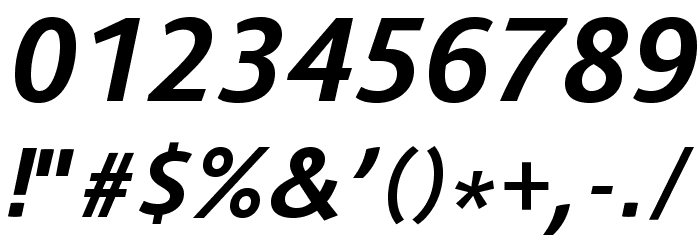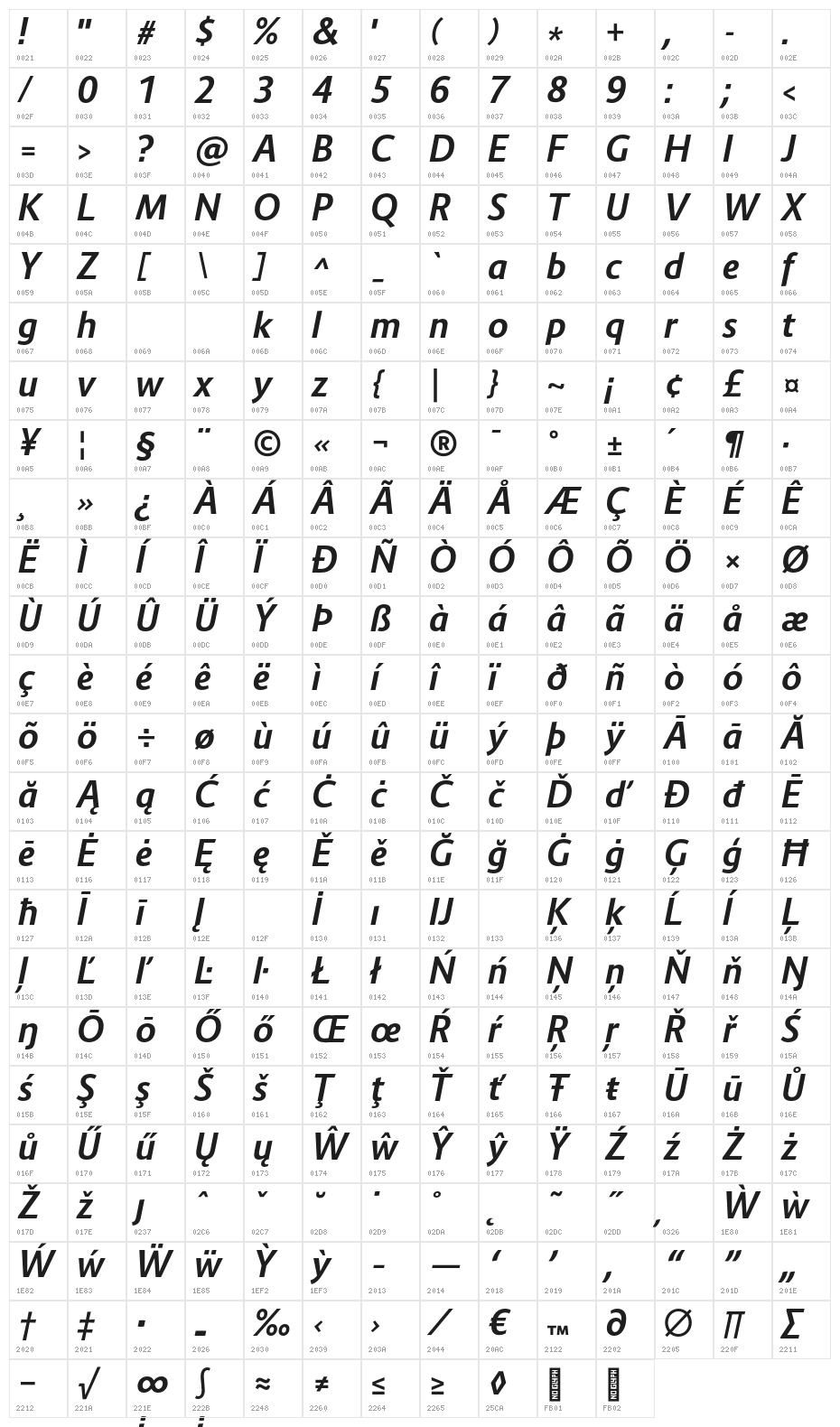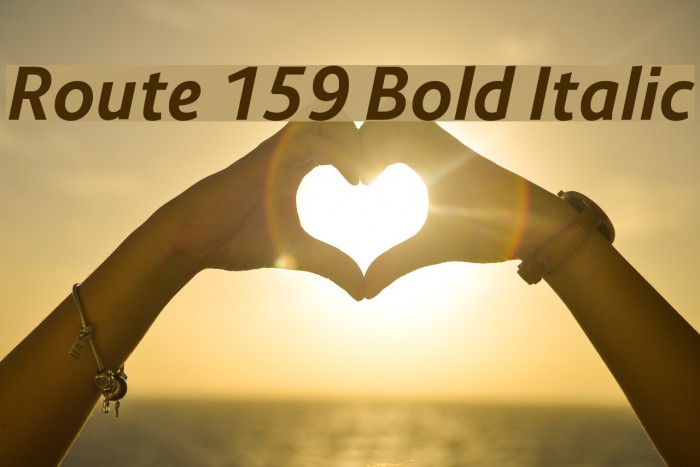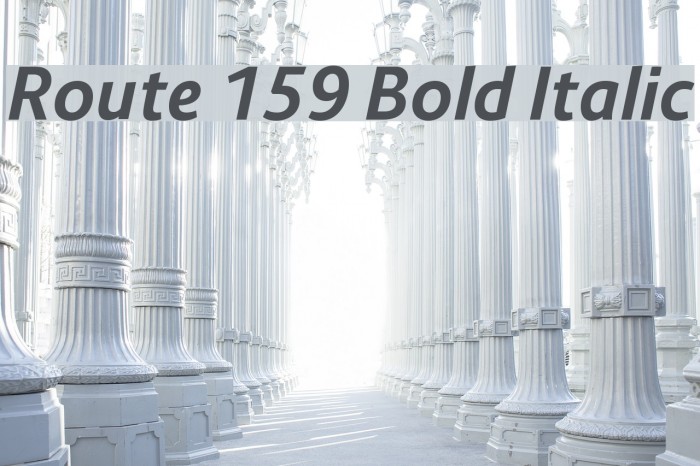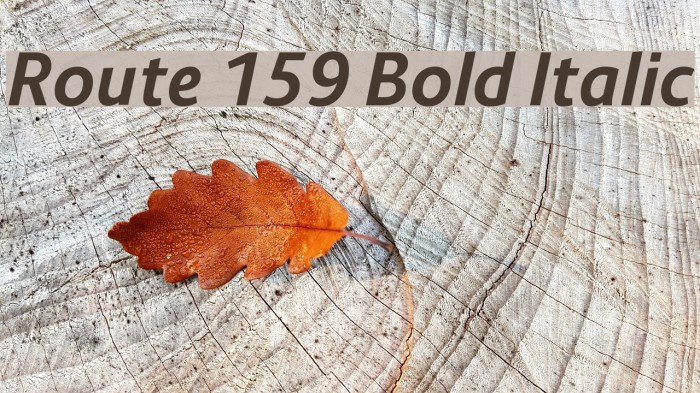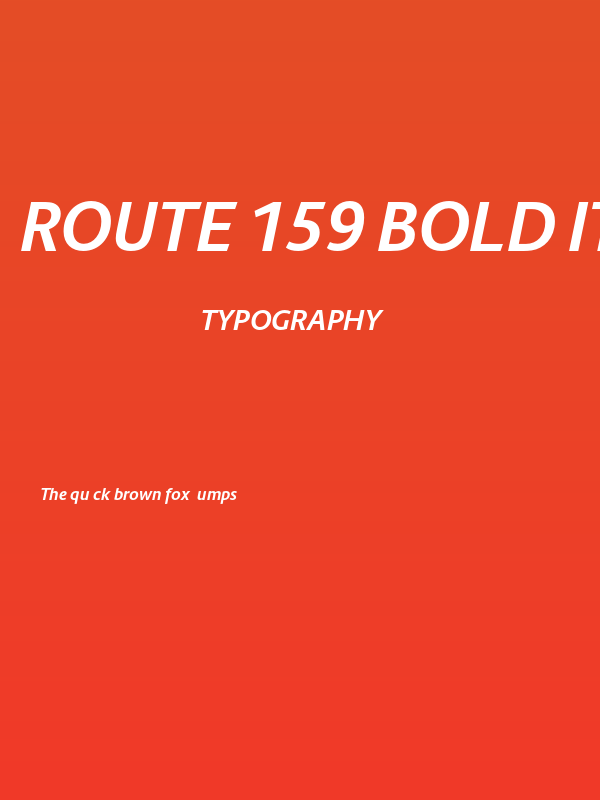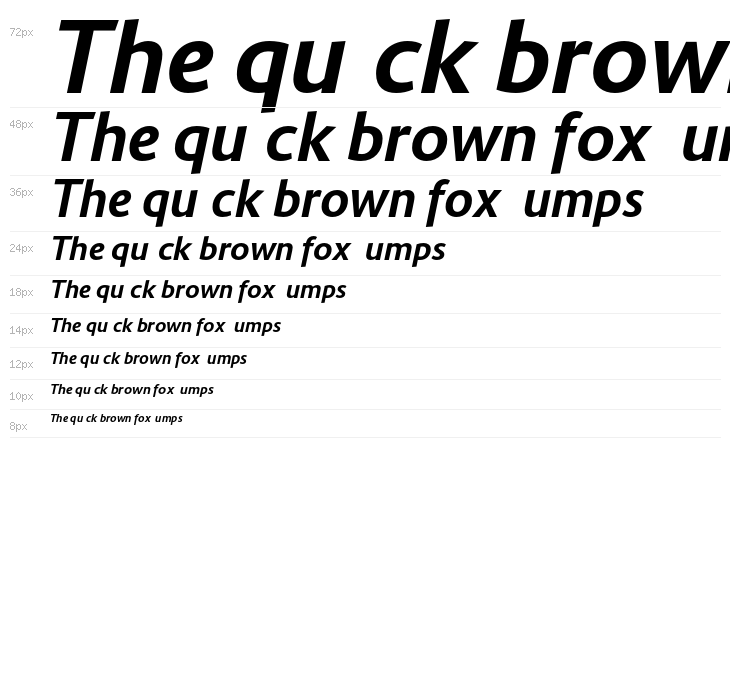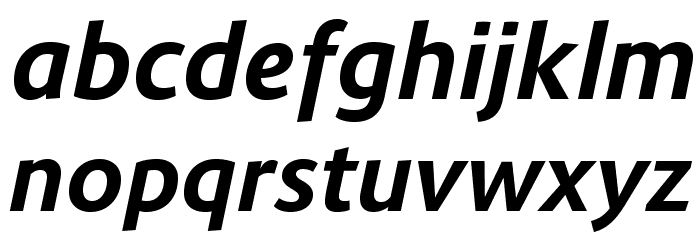
Route 159 Bold Italic Font
Route 159 Bold Italic Description
This font features a bold and italic style, characterized by its strong, slanted letterforms that convey a sense of dynamism and emphasis. The typeface maintains a clean and modern aesthetic, with smooth curves and a uniform stroke width that enhances readability. The uppercase and lowercase letters are well-proportioned, and the numerals are clear and distinct. Special characters are included, providing versatility for various design needs. The overall appearance is sleek and professional, making it suitable for a wide range of applications.